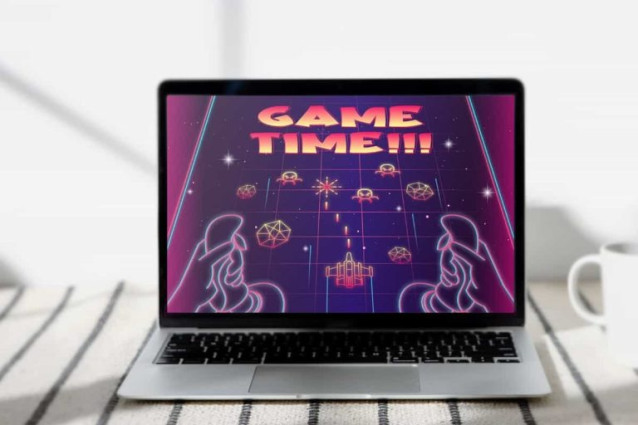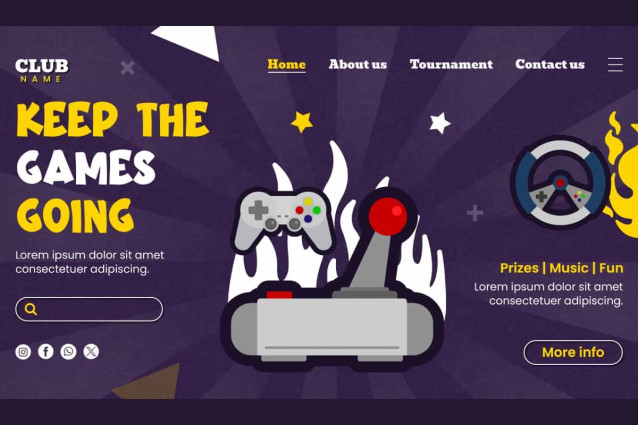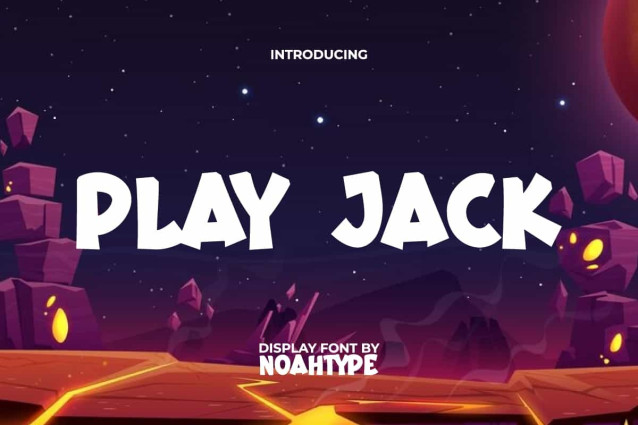
Play Jack Font
Play Jack Font is a bold font with a touch of cartoon style by NoahType. This font has fat and adorable characters so it can give a playful impression. It will be perfect for any designs, such as custom design, invitation, label, brand image, cover, menu, poster, printing, product packaging, quotes, signage, stationery, website, and many more!
Play Jack Font includes full set of ALL CAPS for Uppercase and Lowercase Basic Characters, Numerals, Punctuation, and Symbol. This modern font will make your design amazing and also a perfect choice for many industries, such as game, movie, accessories, automotive, sports, advertising, art, café, event or festival, fashion, music, printing, publishing, etc.